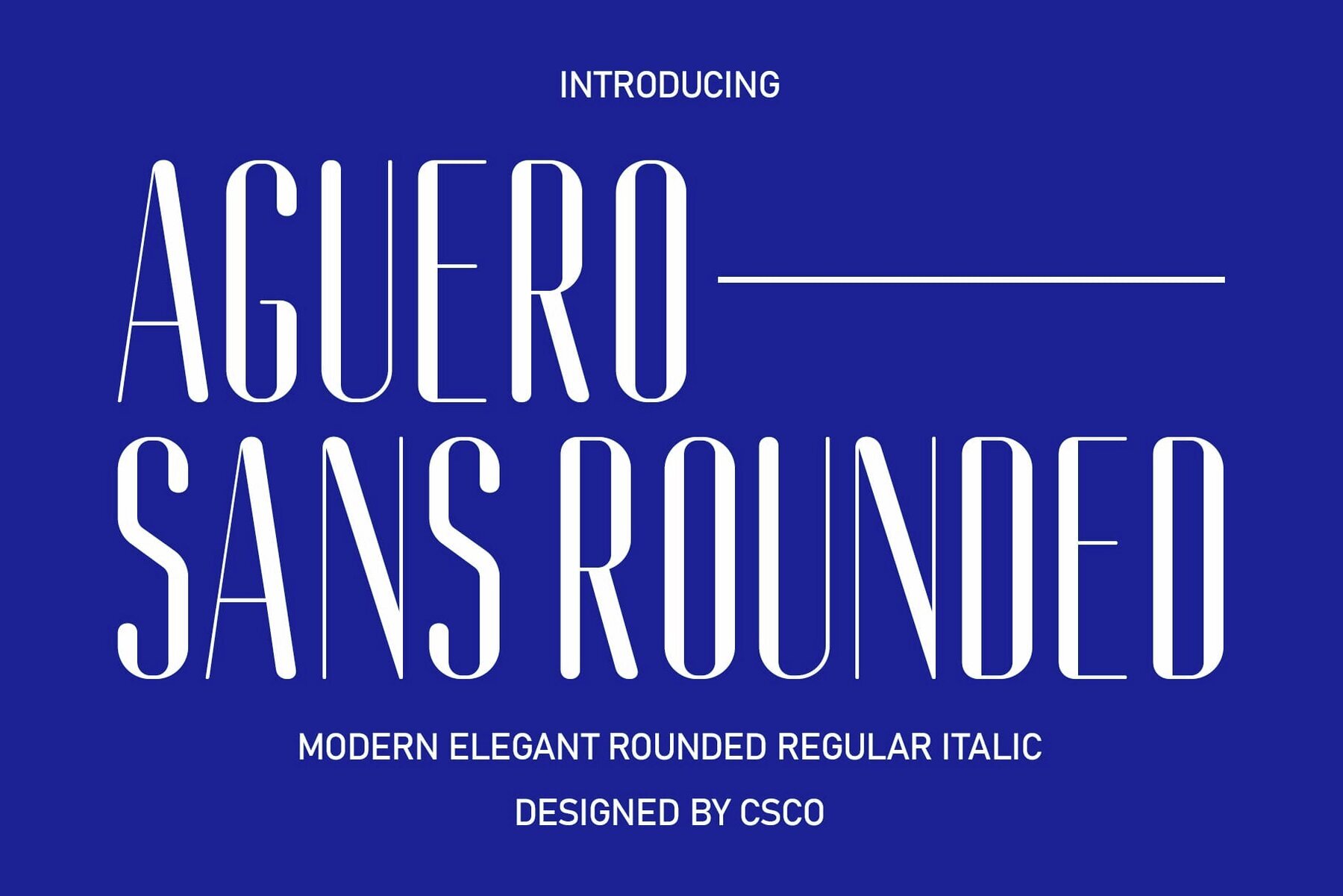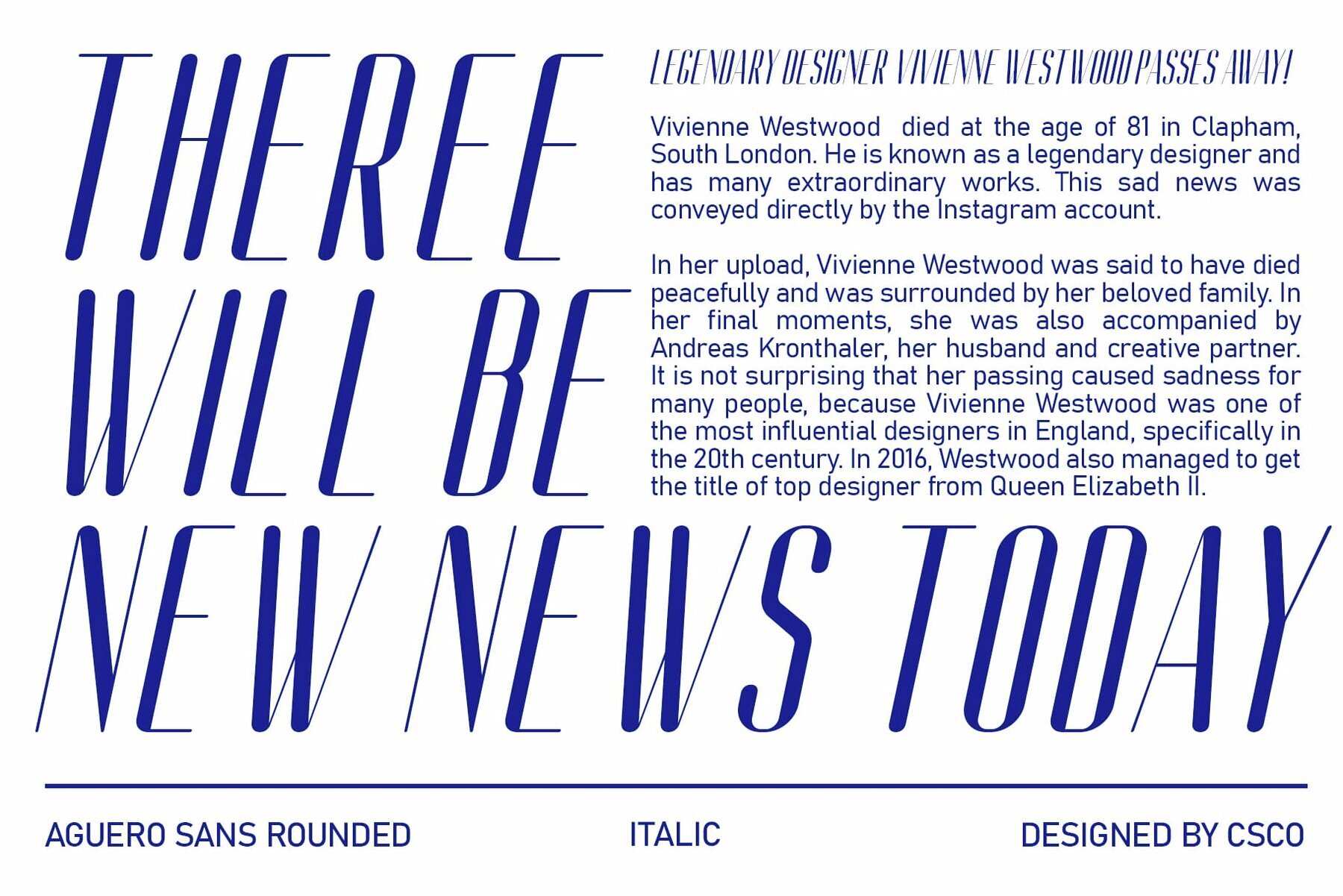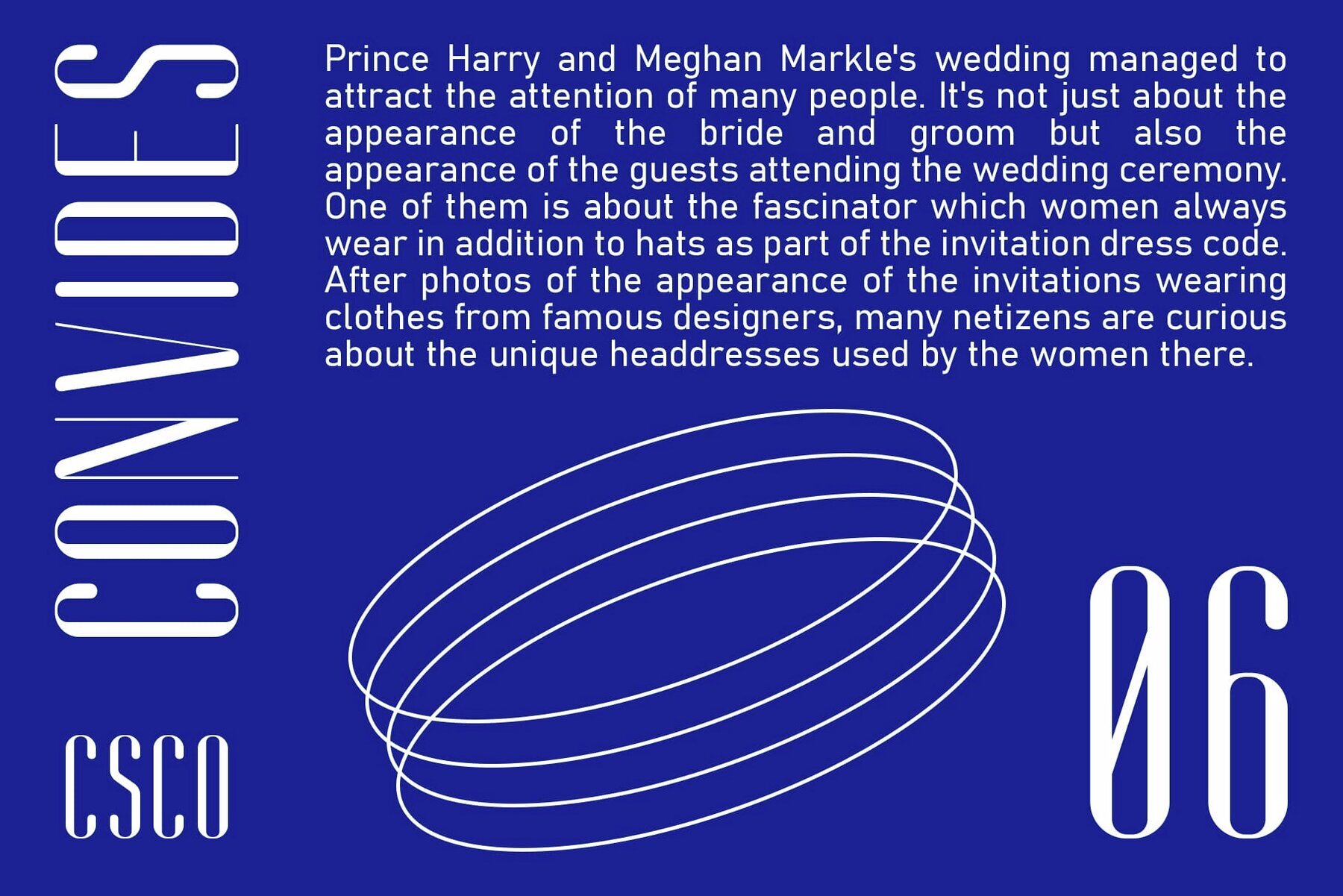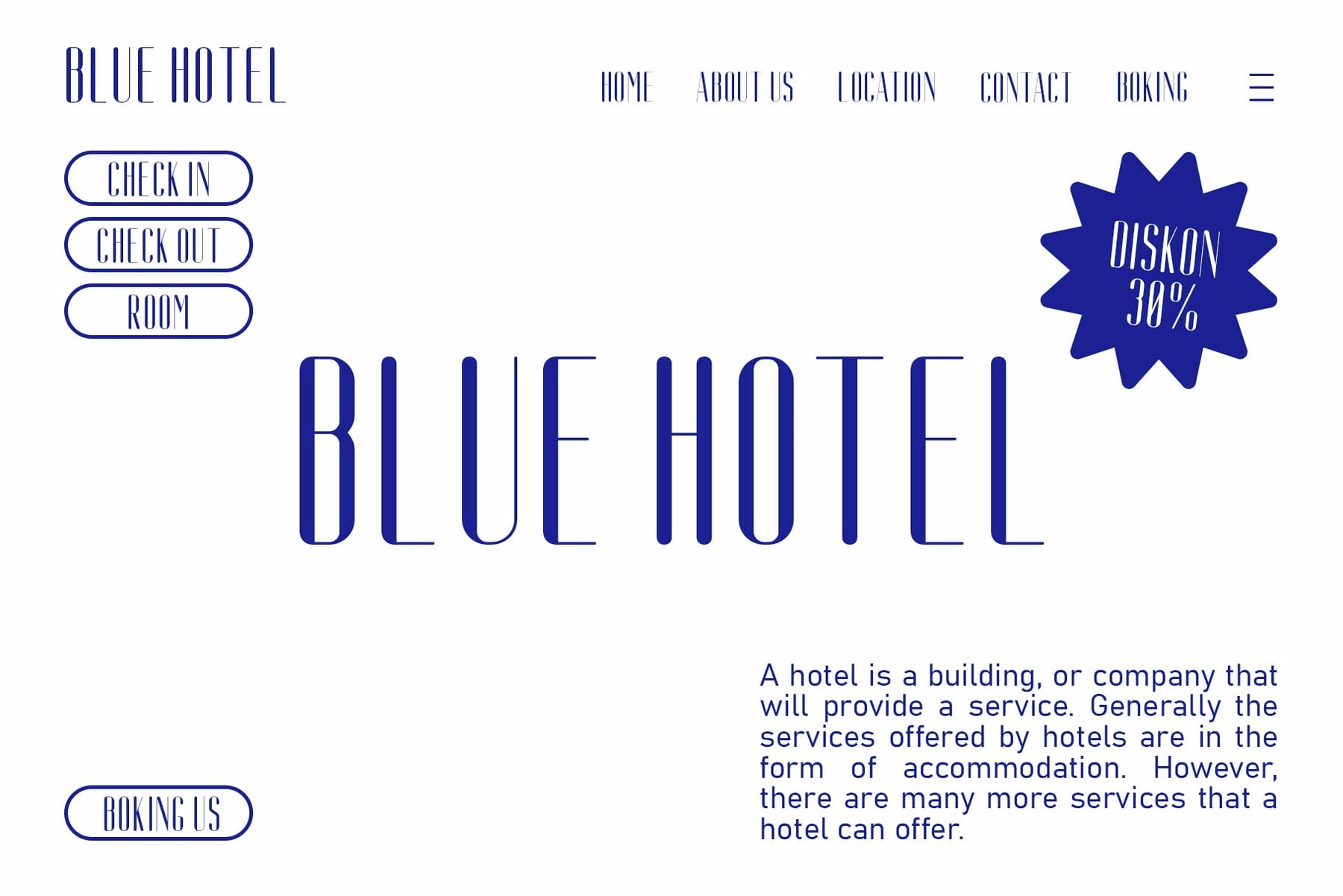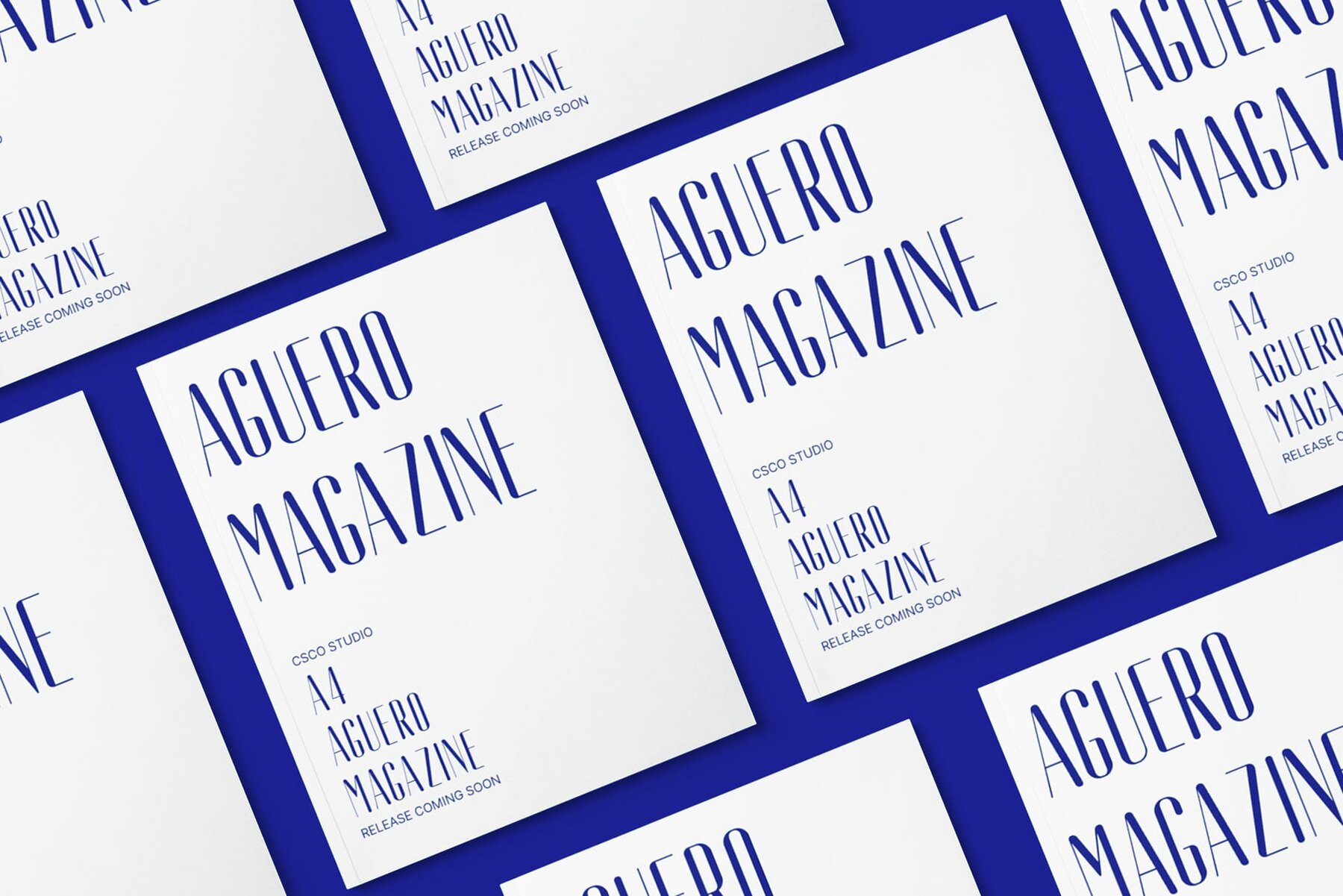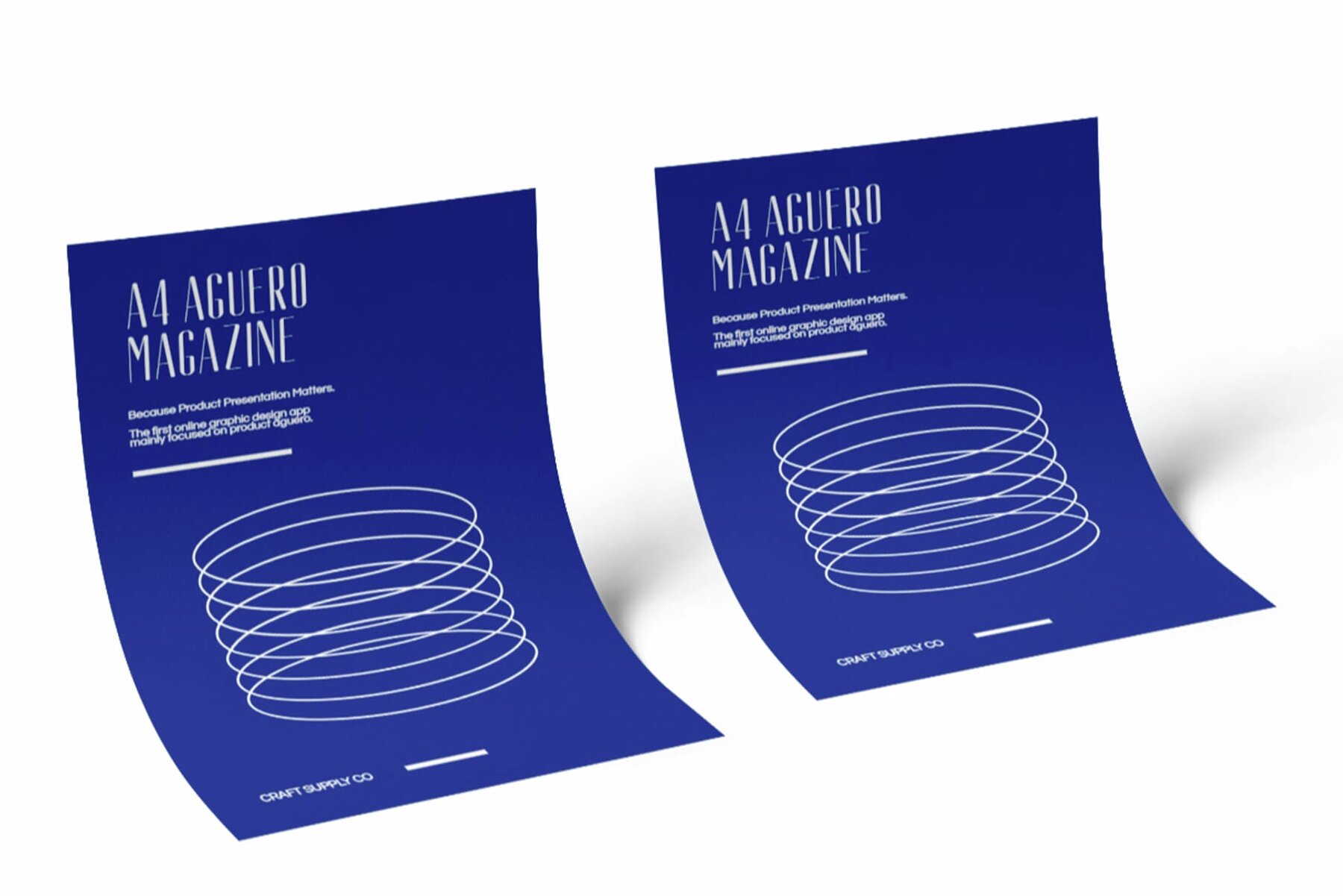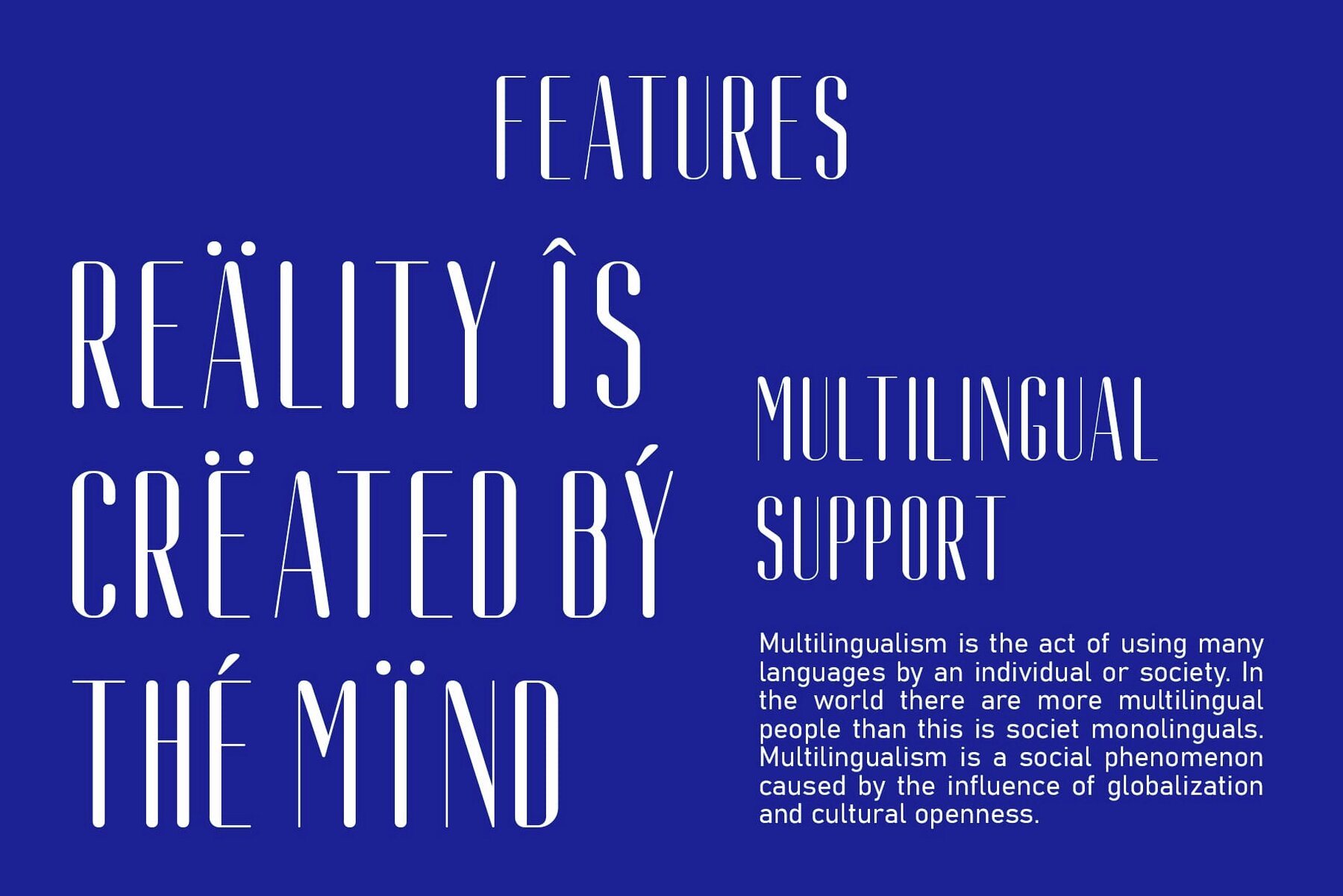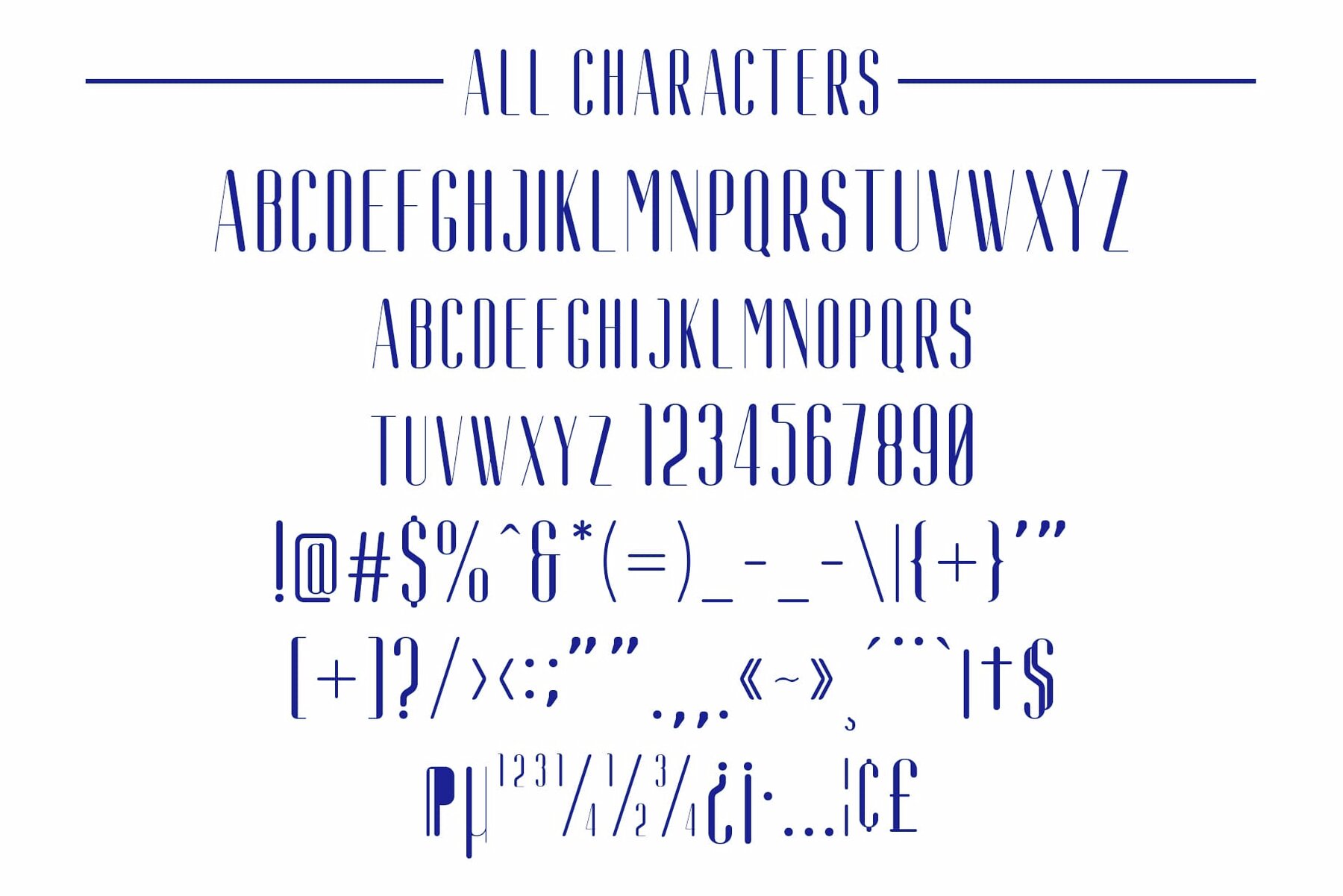
Aguero Sans Rounded Font
The Aguero Sans Rounded font offers a unique blend of boldness and elegance, thanks to its rounded sans serif design with high contrast. This typeface is ideal for creating impactful and visually striking typography. Aguero Sans Rounded is versatile and dynamic, making it suitable for various design applications. Its bold yet rounded aesthetic ensures a contemporary edge, ideal for headlines, posters, or branding materials. This typeface can be used without specialized software. If you have any inquiries or need assistance, please feel free to contact us. We appreciate your support in enhancing your creative projects!Aguero Sans Rounded: Bold and Rounded Sans Serif
Key Characteristics
Versatility and Modern Appeal